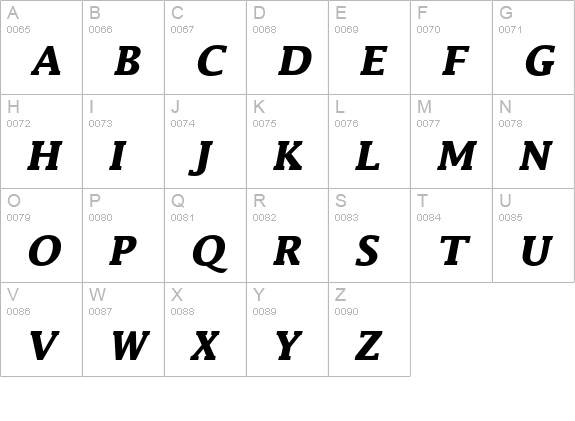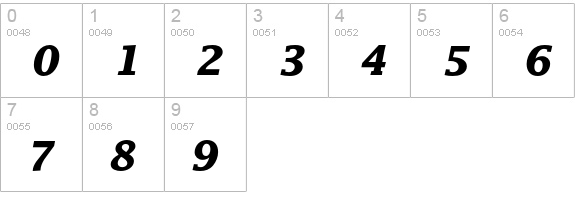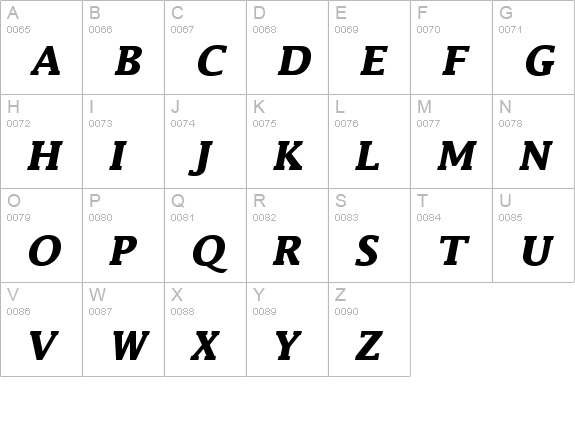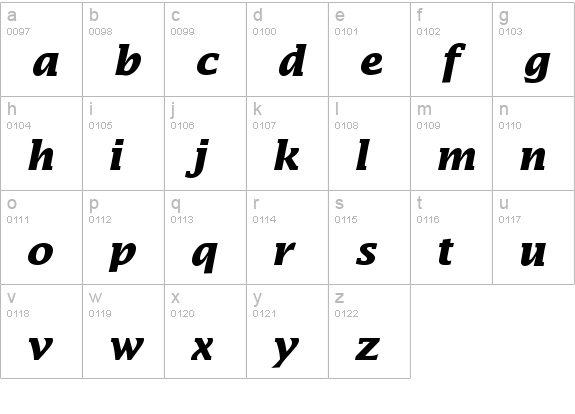
Lucida Bold Italic Font Details
Lucida Bold Italic is a strong, high-contrast, italic variant in the Lucida typeface family \xE2\x80\x94 well suited to headlines, attention-grabbing titles, and strong calls-to-action.
Lucida Bold Italic is a striking and dynamic font that exudes sophistication and elegance. With its bold weight and italicized style, this typeface is perfect for creating eye-catching headlines, titles, and emphasis in various design projects. The unique combination of thick strokes and slanted angles gives Lucida Bold Italic a sense of modernity and flair that is sure to make your text stand out. This versatile font is ideal for use in posters, advertisements, branding materials, and more. Its bold and italic features add a touch of drama and emphasis to any design, making it a popular choice among graphic designers and creatives looking to make a statement. But the best part? Lucida Bold Italic is available for free download at FontsMarket.com. That's right, you can access this stunning font at no cost and use it in your projects without any restrictions. So why wait? Enhance your designs with the bold and italic charm of Lucida Bold Italic today!